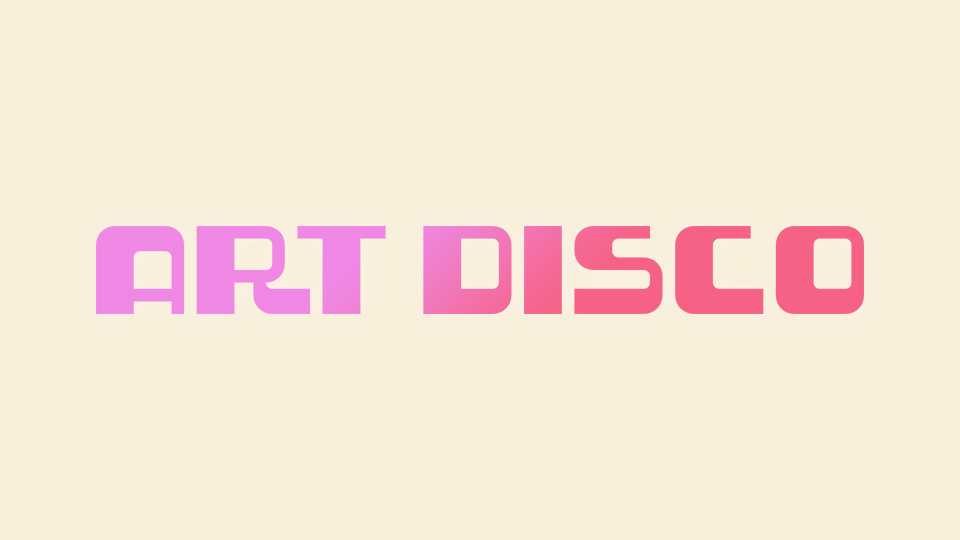
Download Art Disco font, a display typeface inspired by the art deco lettering on Saint-Gobain PAM manhole covers produced for Pont-à-Mousson and Dublin Corporation.